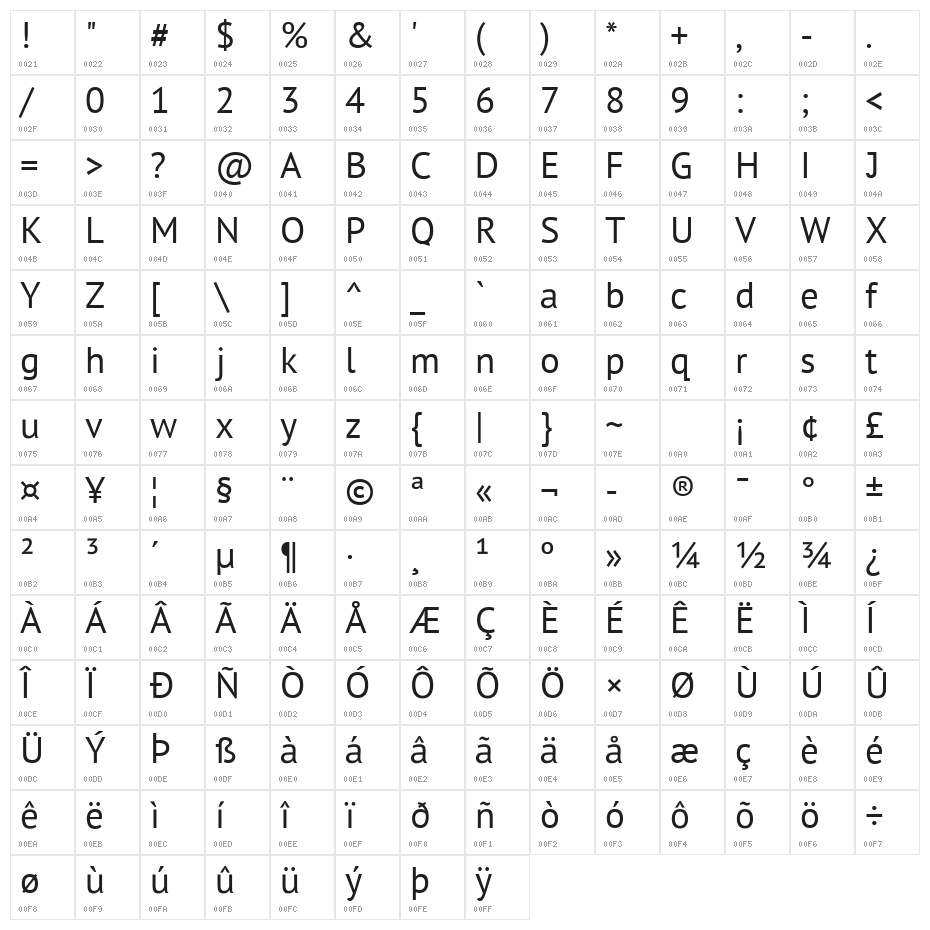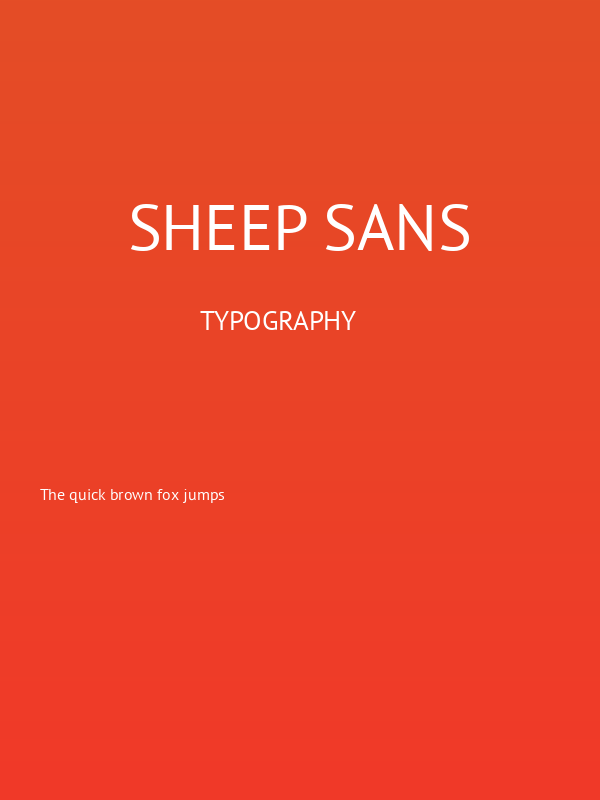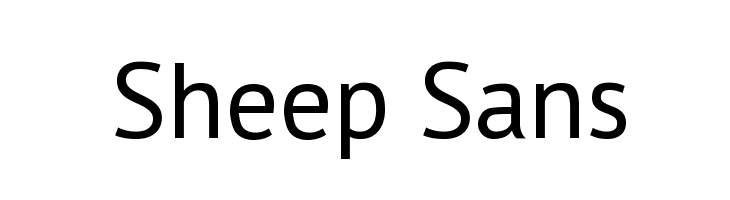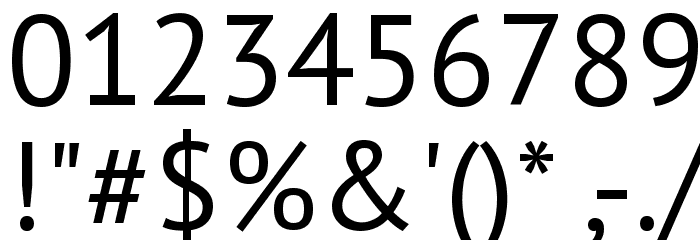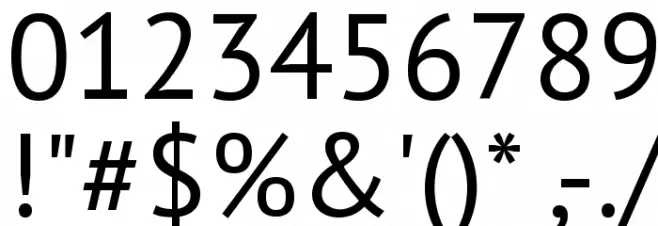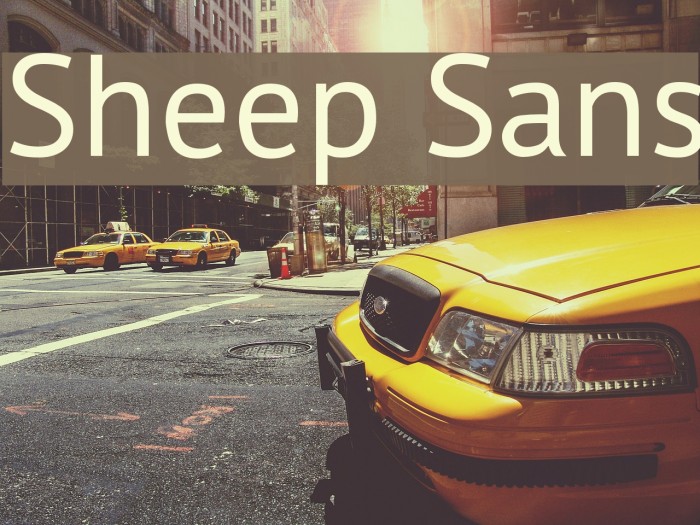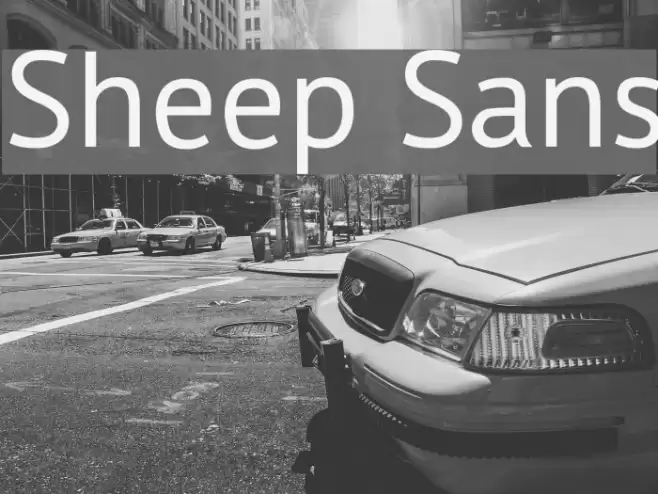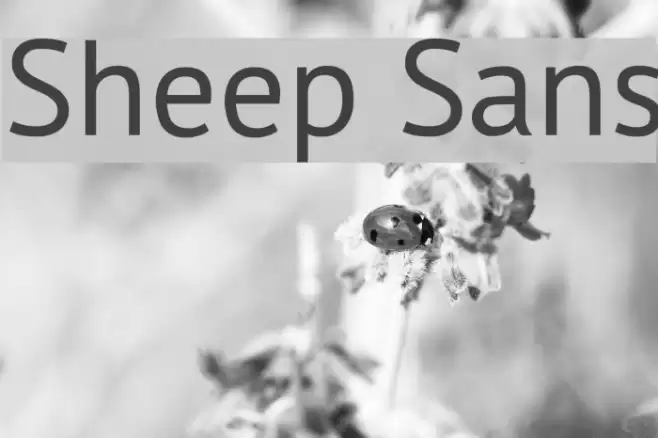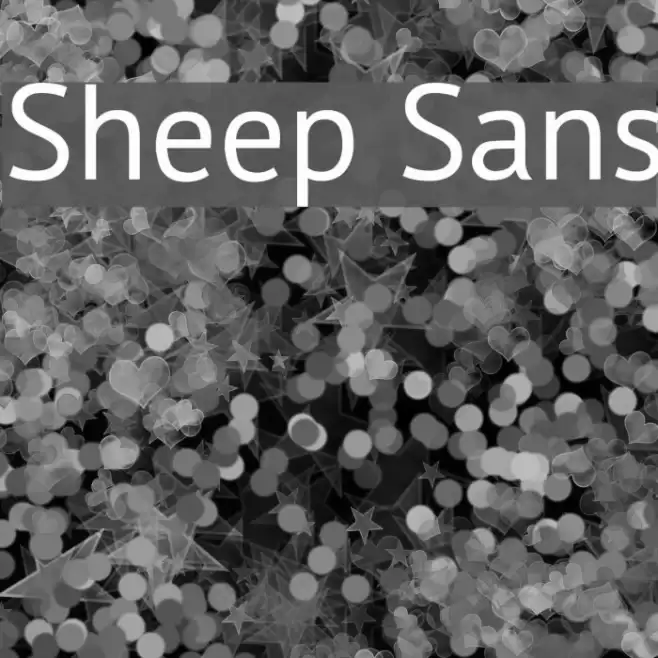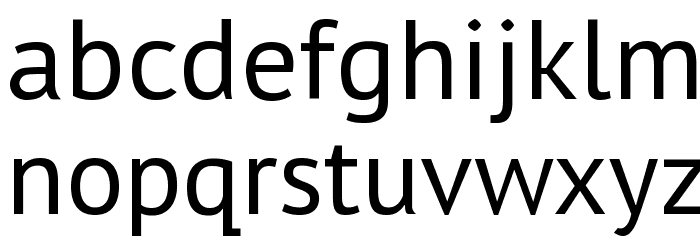
Sheep Sans Font
Sheep Sans Description
This font features a clean and modern sans-serif design, characterized by its simplicity and readability. The letters are evenly spaced with a consistent stroke width, providing a balanced and harmonious appearance. The uppercase letters are bold and assertive, while the lowercase letters maintain a friendly and approachable feel. The numerals are clear and distinct, making them easy to read in various contexts. Special characters are well-integrated, maintaining the overall aesthetic of the font. This typeface is versatile, suitable for both digital and print media, and can be used effectively in a wide range of design projects.
| Use Case | Headlines, Body text, Logos |
| Proposed Projects | Ideal for web design, branding, advertising, and editorial layouts. |